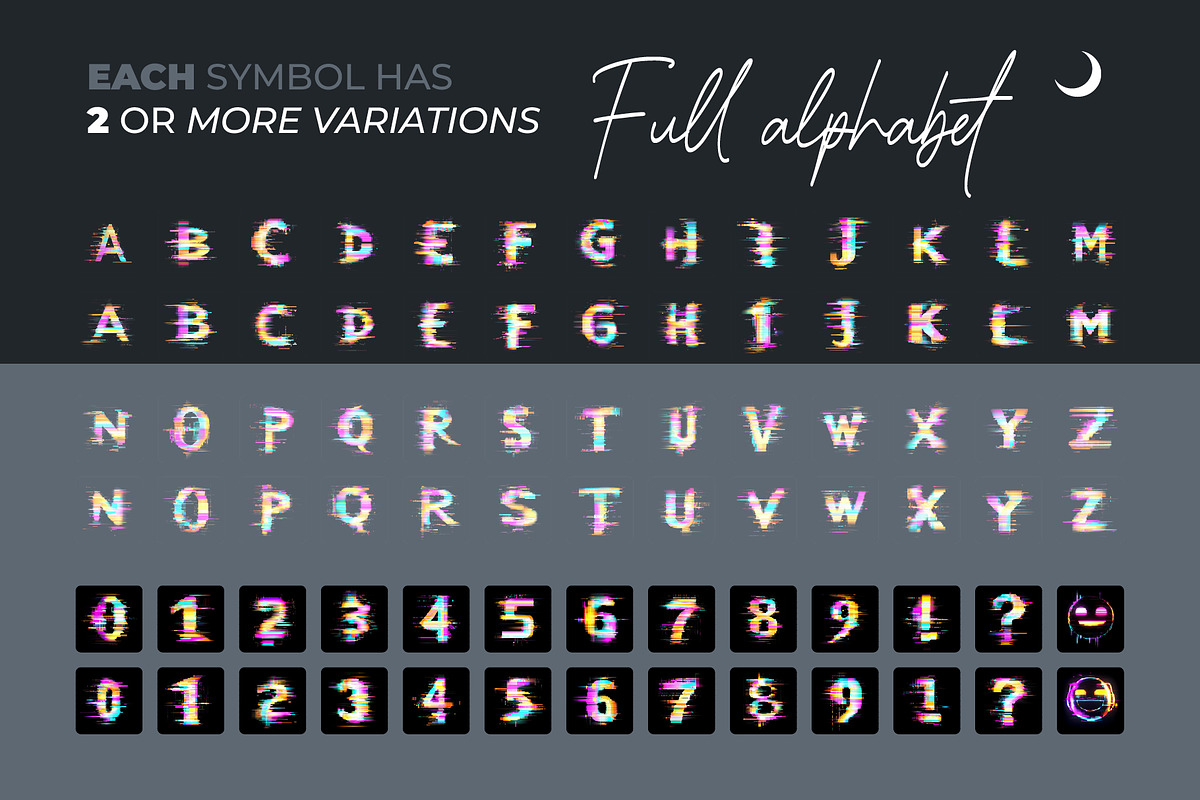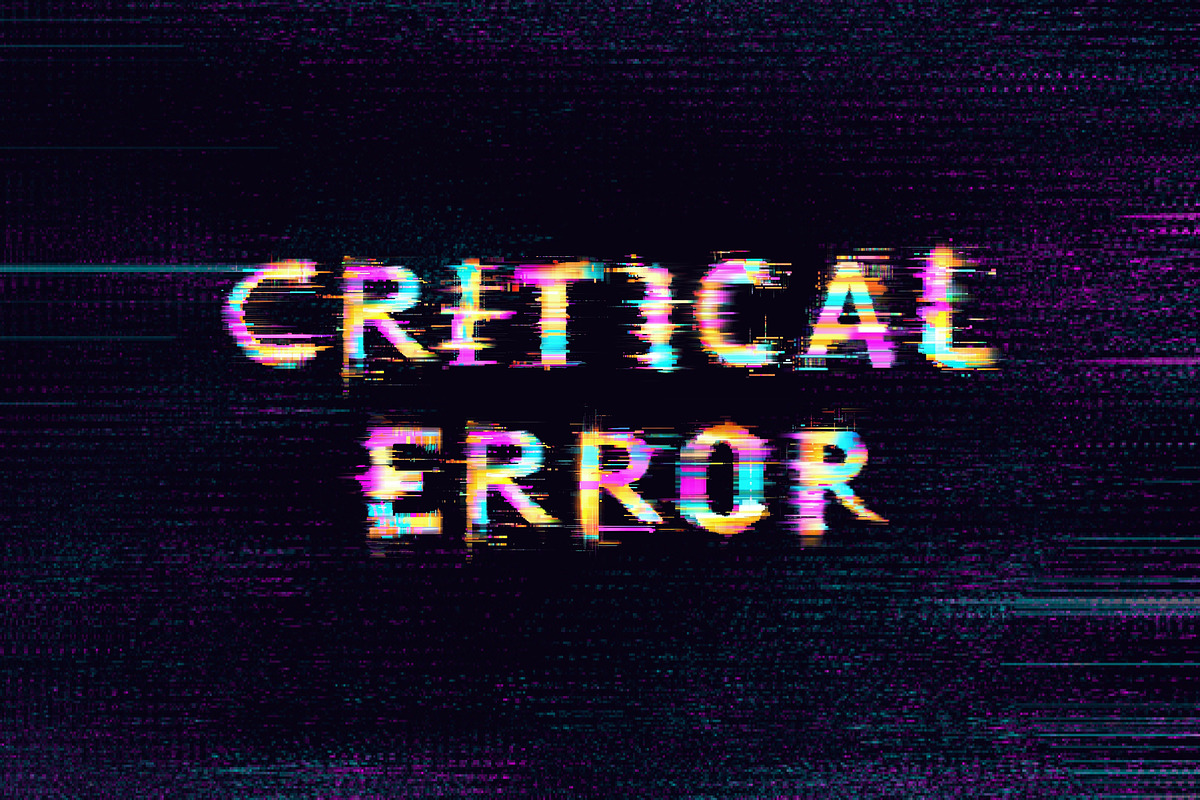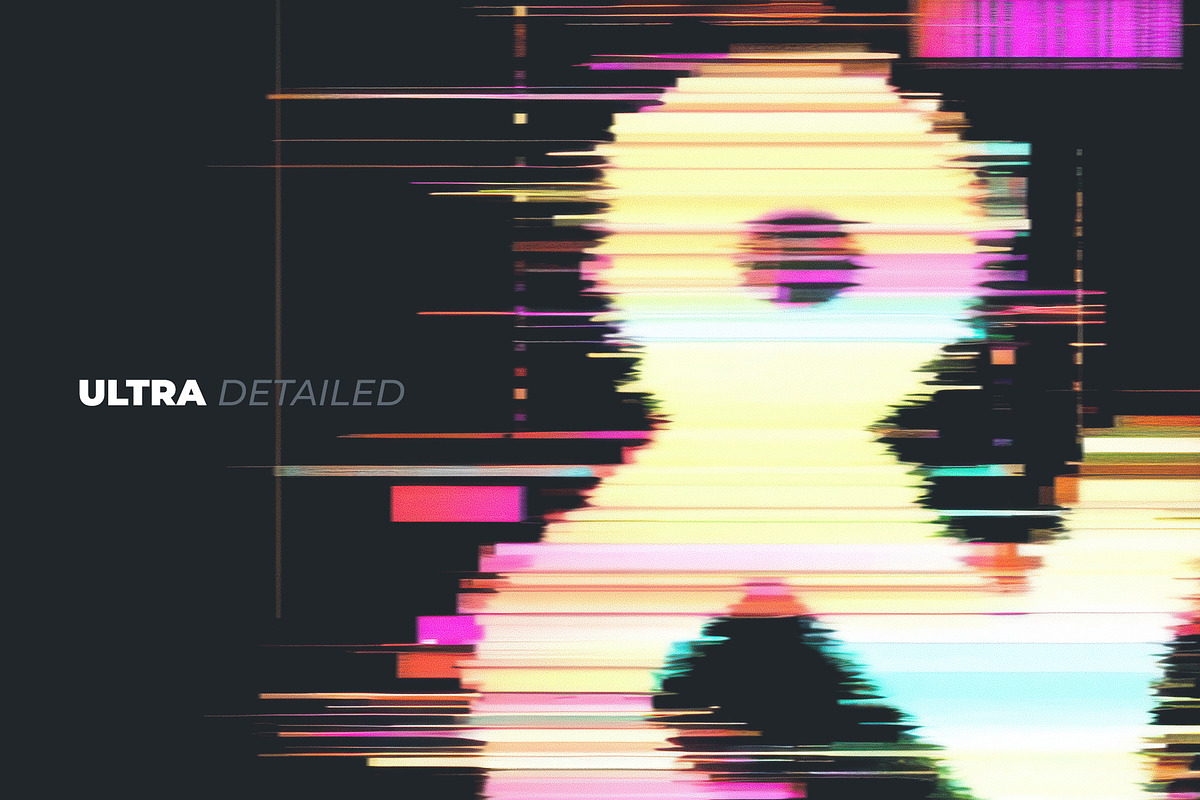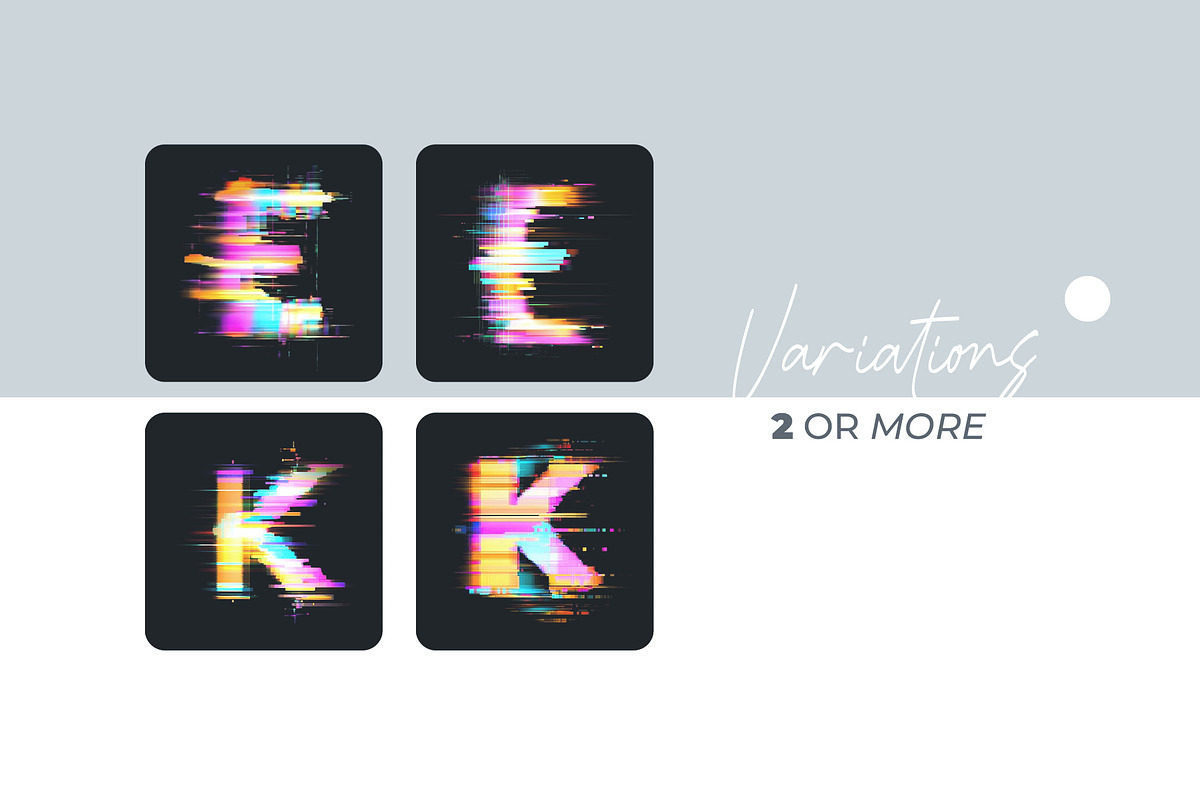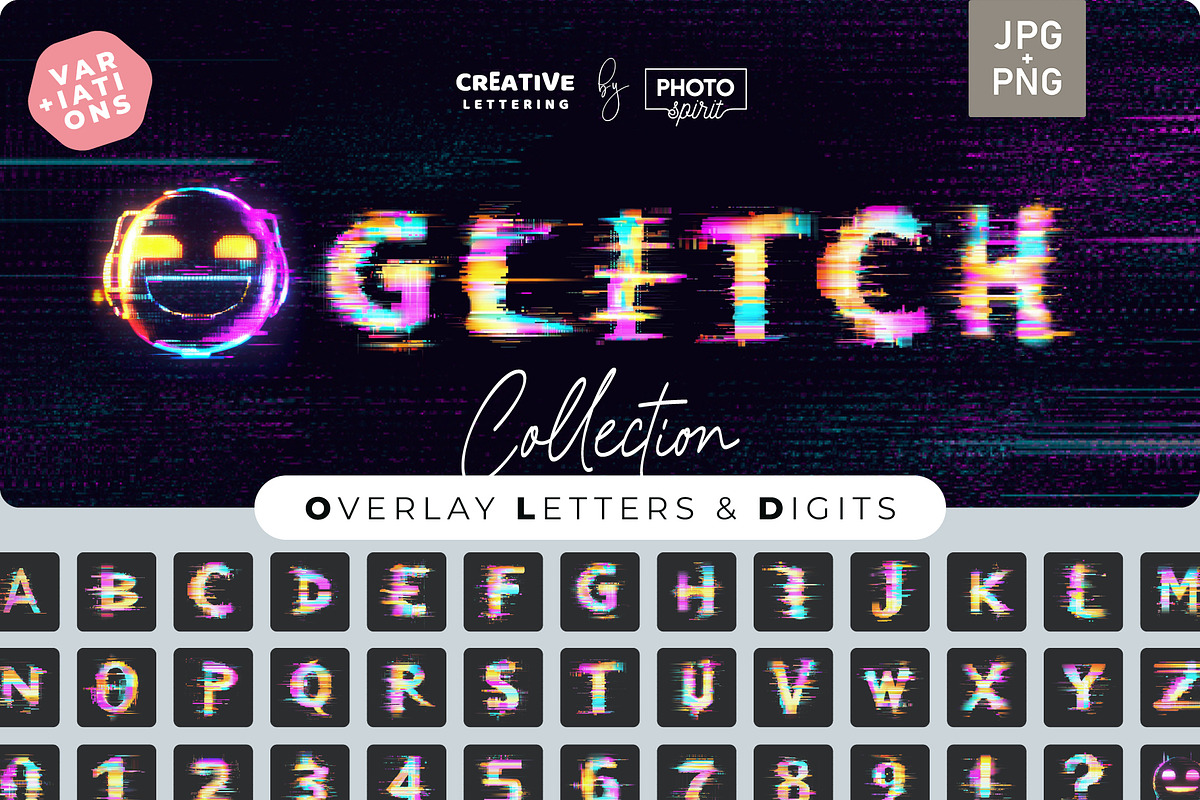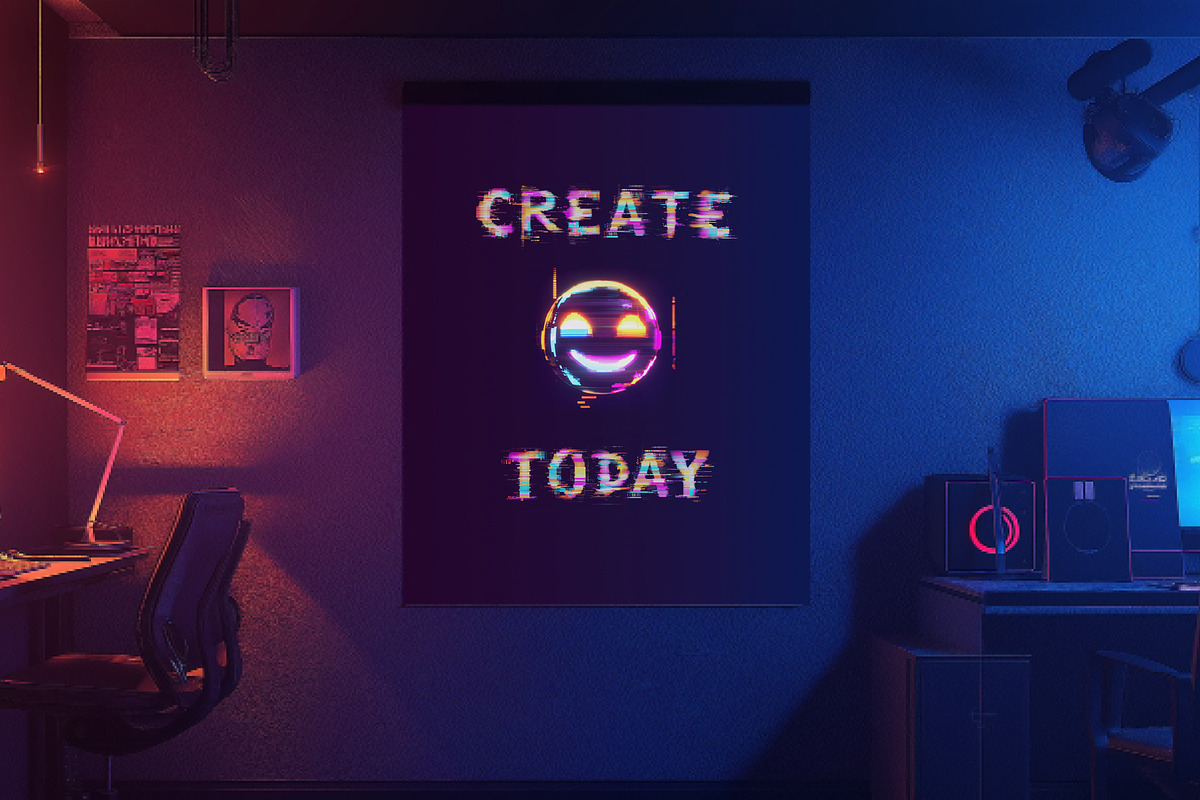
Digital Glitch Pixel Letters Overlay
Futuristic & Cyber Aesthetic with Digital Glitch Pixel Letters Overlays
Give your designs a high-tech, distorted, and futuristic edge with Digital Glitch Pixel Letters Overlays. This collection of glitch-inspired typography brings a cyberpunk, digital noise, and pixelated distortion effect to your projects, making it perfect for creating bold and modern visuals.
Ideal for tech branding, futuristic posters, gaming content, glitch art, digital marketing, and sci-fi projects, these overlays create an electrifying, digitalized aesthetic. Each letter is carefully crafted with unique pixel fragments, noise effects, and chromatic distortions for an authentic cyber-glitch feel.
⚡ Key Features:
✅ Complete Alphabet & Symbols – Includes uppercase letters, numbers, and essential punctuation.
✅ Multiple Glitch Variations – 2–5 unique styles per letter for a dynamic, ever-changing look.
✅ Authentic Digital Distortion – Designed with pixel fragmentation, RGB shift, and cyber noise effects.
Embrace the glitch effect and give your designs a high-tech, pixelated, and futuristic transformation! ⚡💾